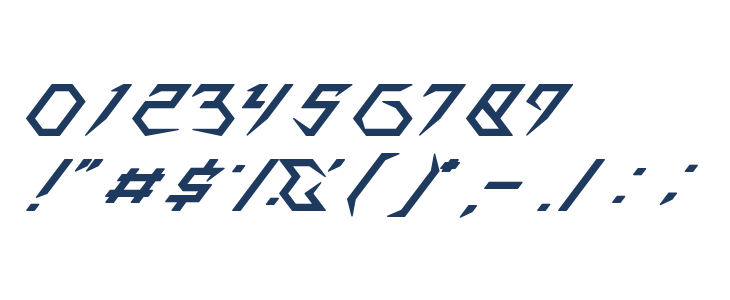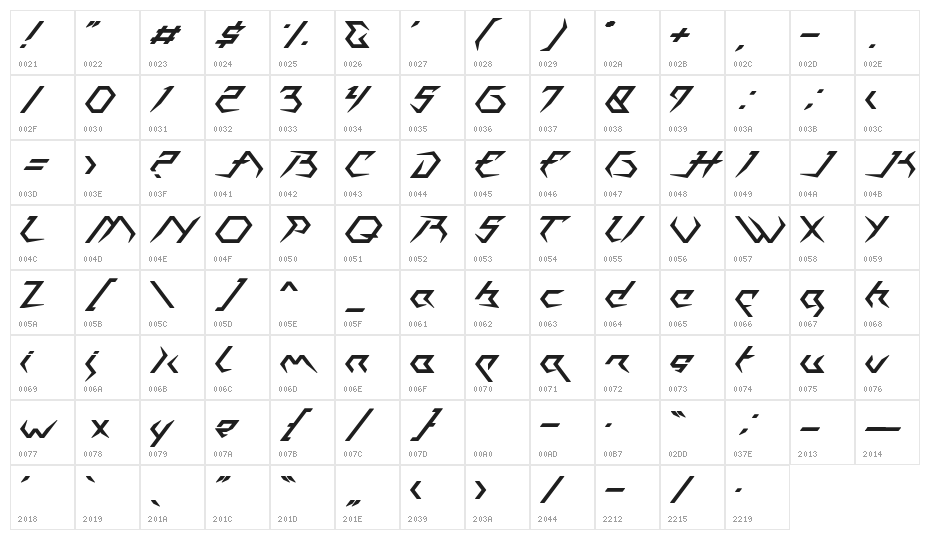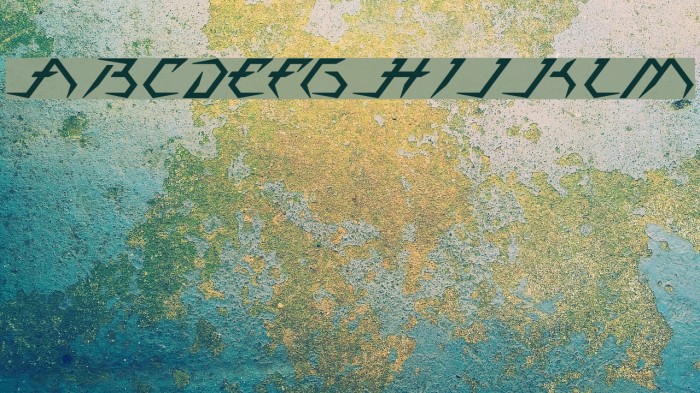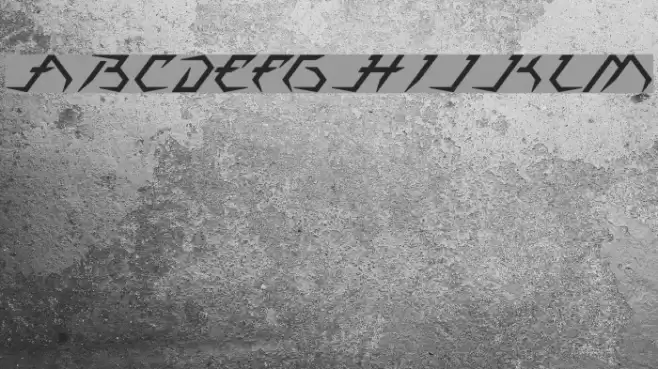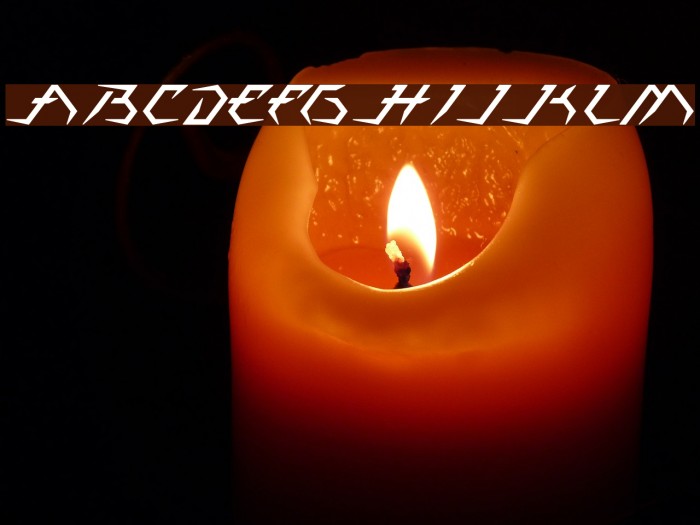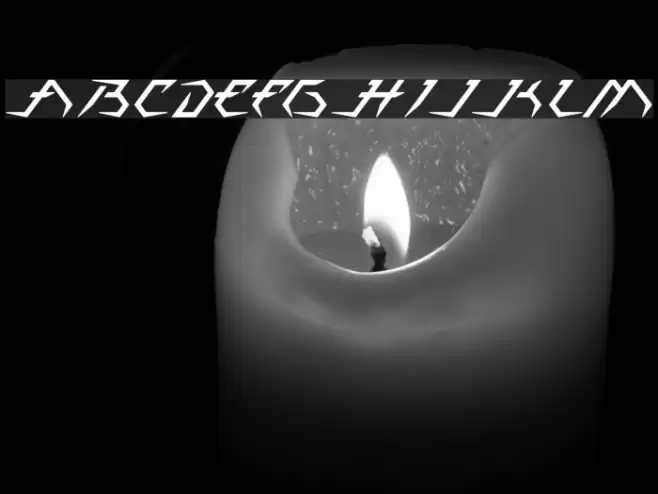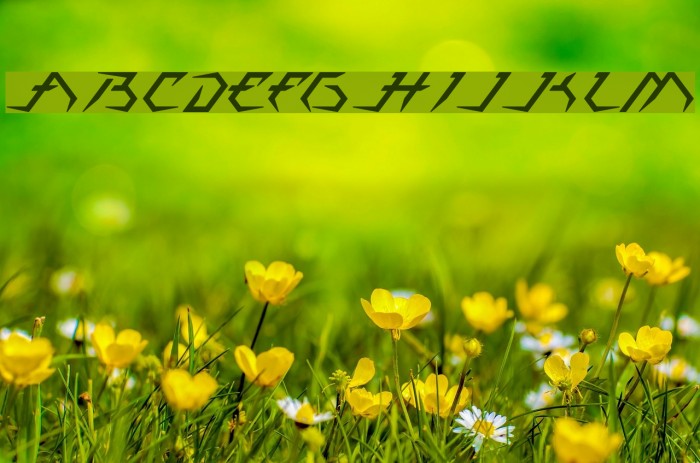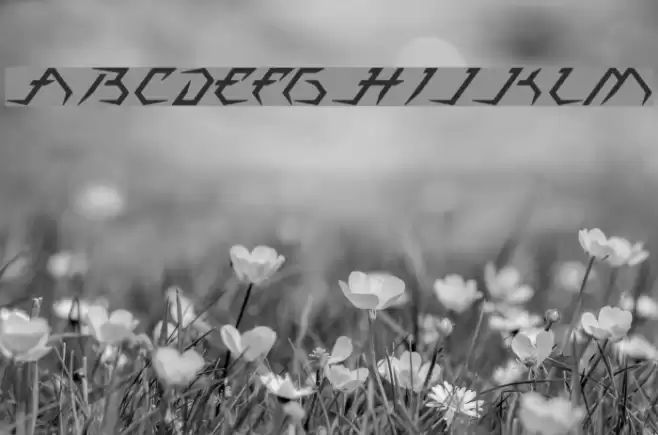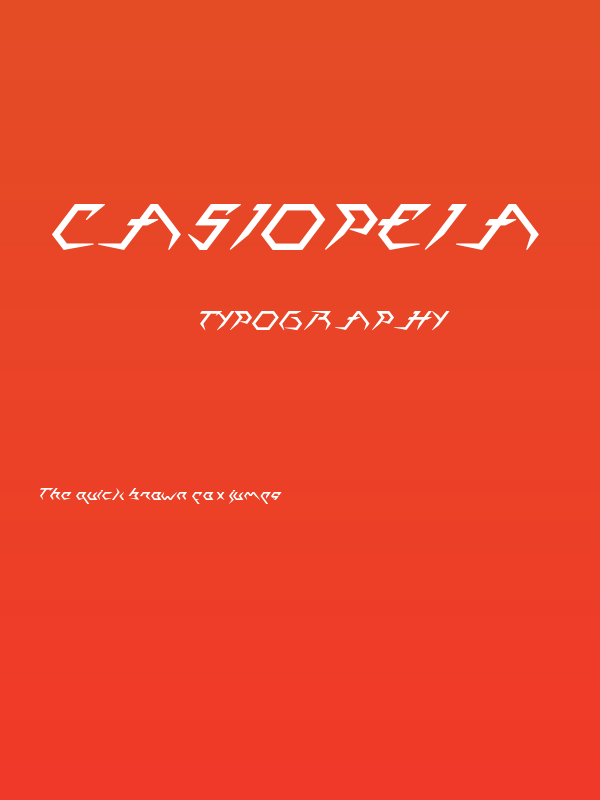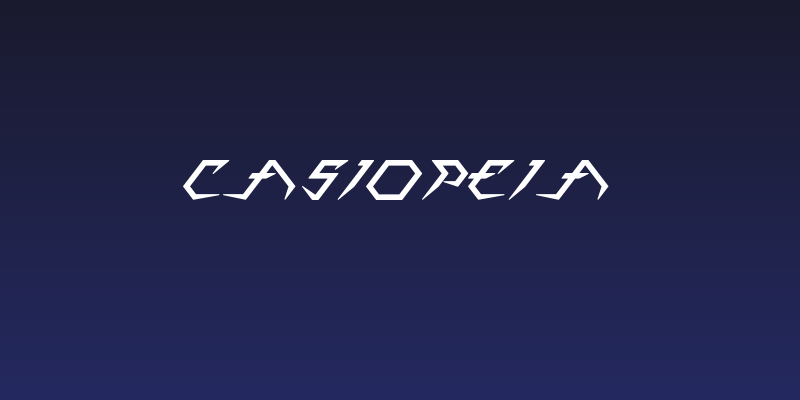
Casiopeia Font
This font features a futuristic and angular design, characterized by sharp edges and a geometric structure. The letters are stylized with a distinct slant, giving them a dynamic and energetic appearance. The uppercase and lowercase letters share a consistent angular theme, while the numerals and special characters maintain the same sharp aesthetic. This font's unique style makes it stand out, offering a bold and modern look that is both eye-catching and memorable.
| Proposed Projects | Ideal for sci-fi themed projects, video game titles, tech branding, and modern posters. |